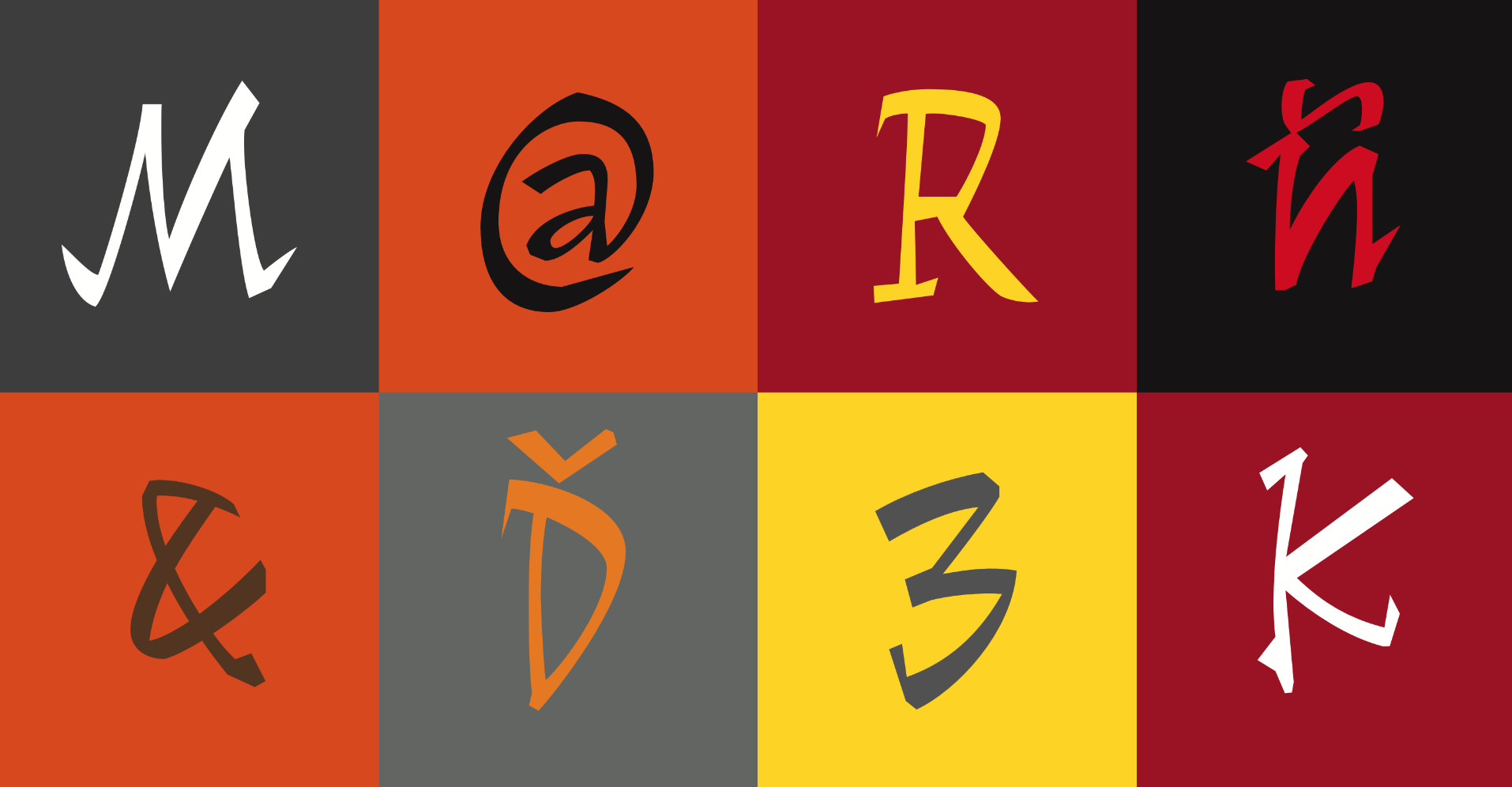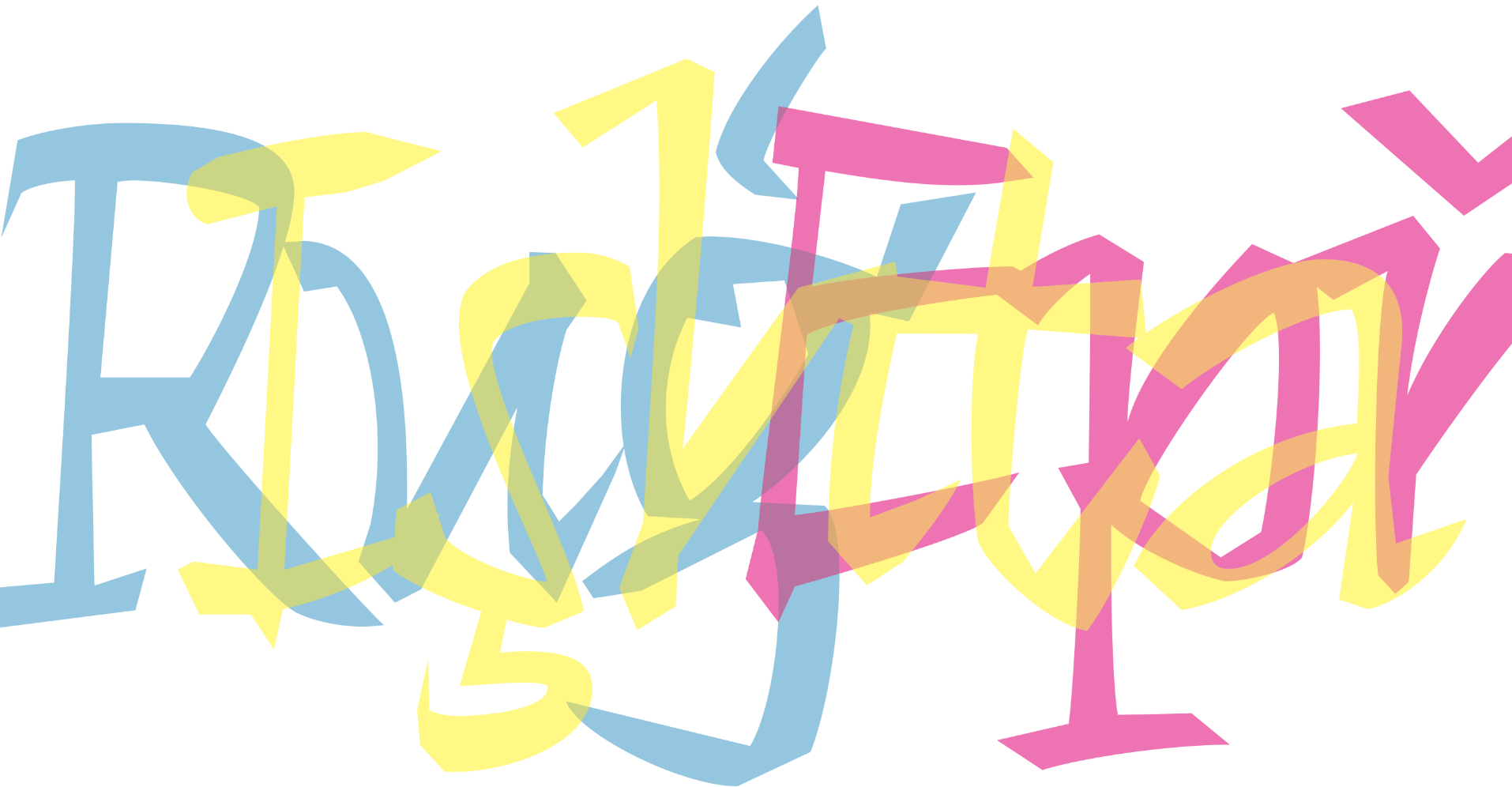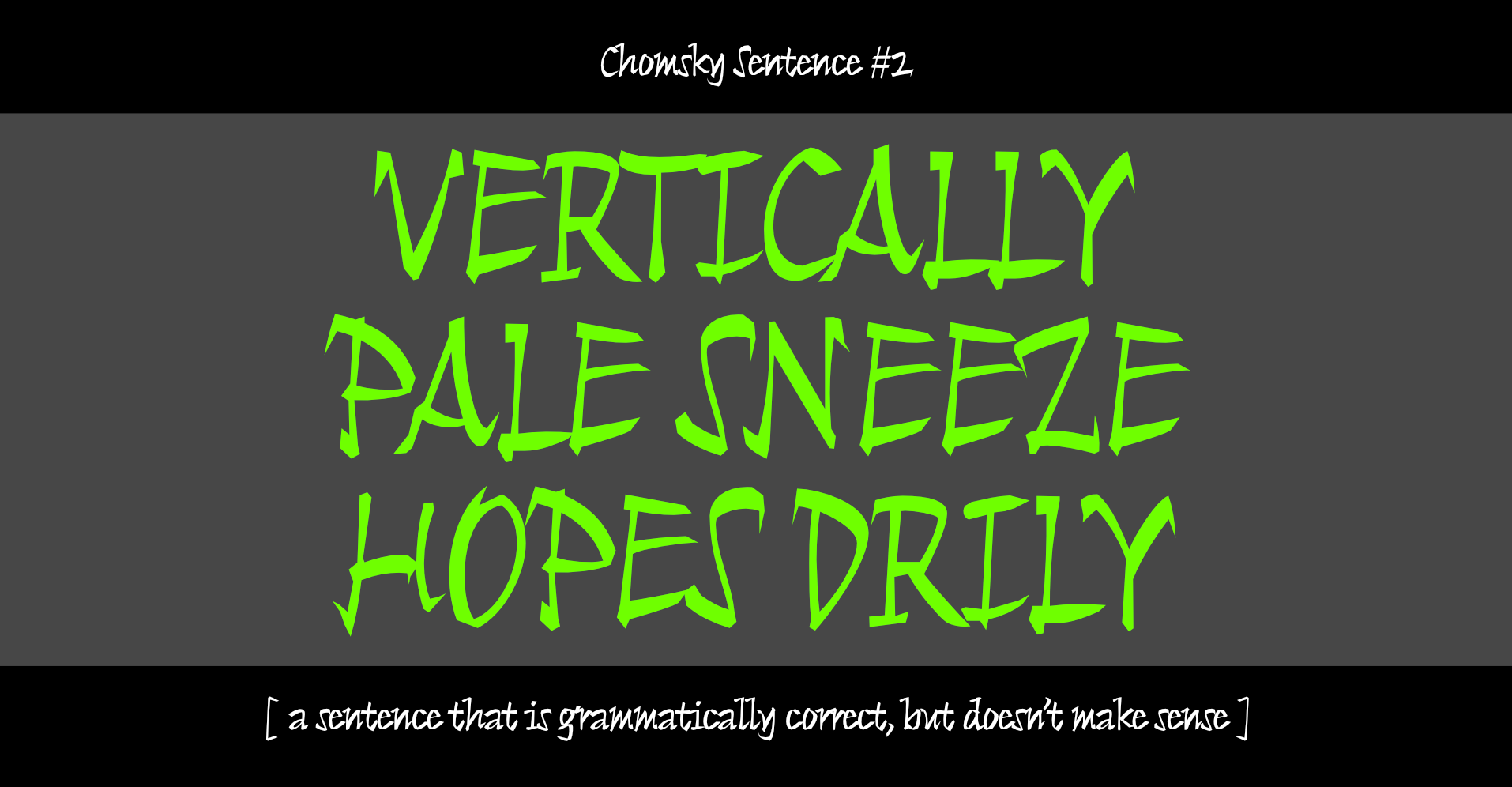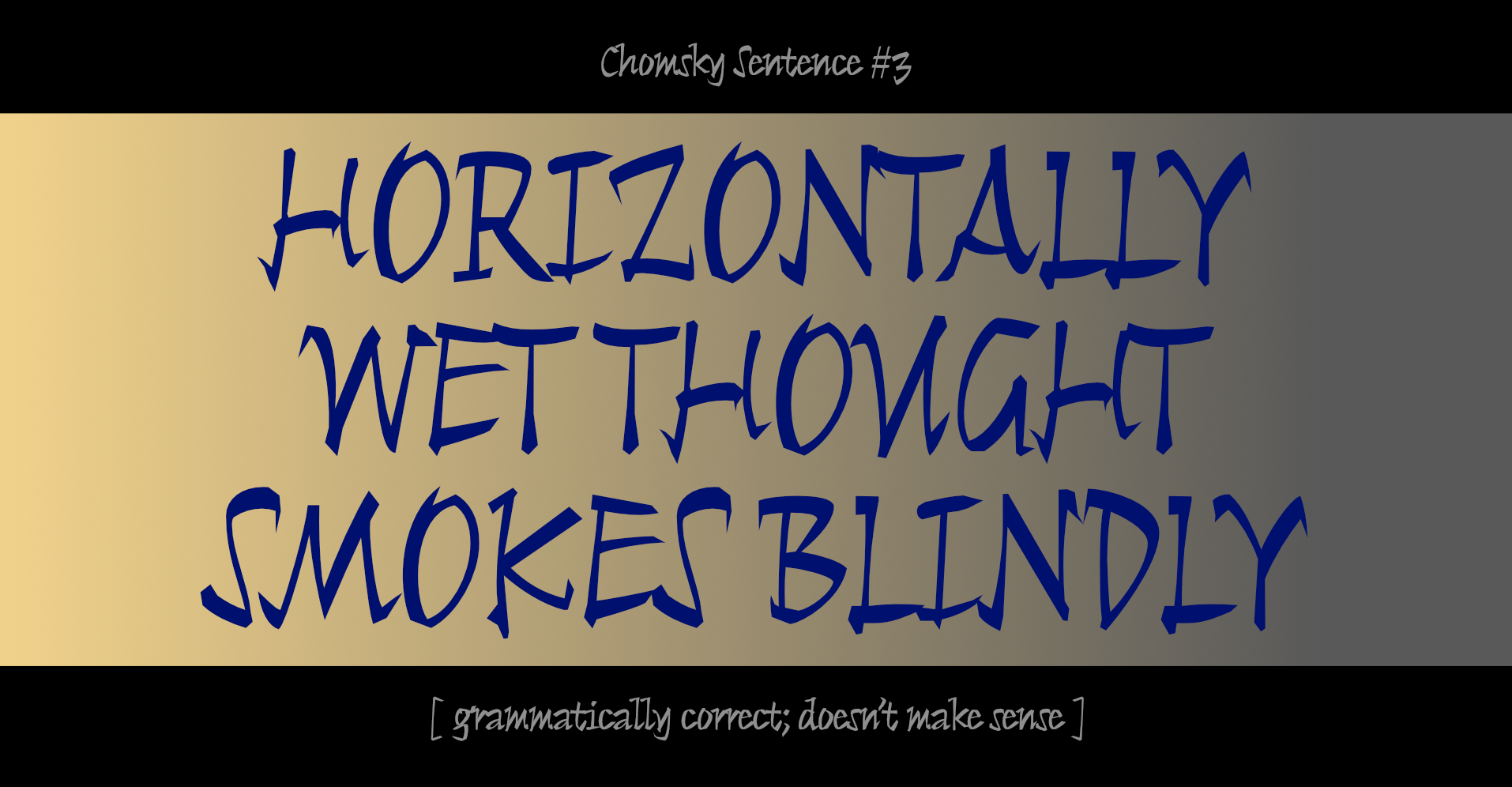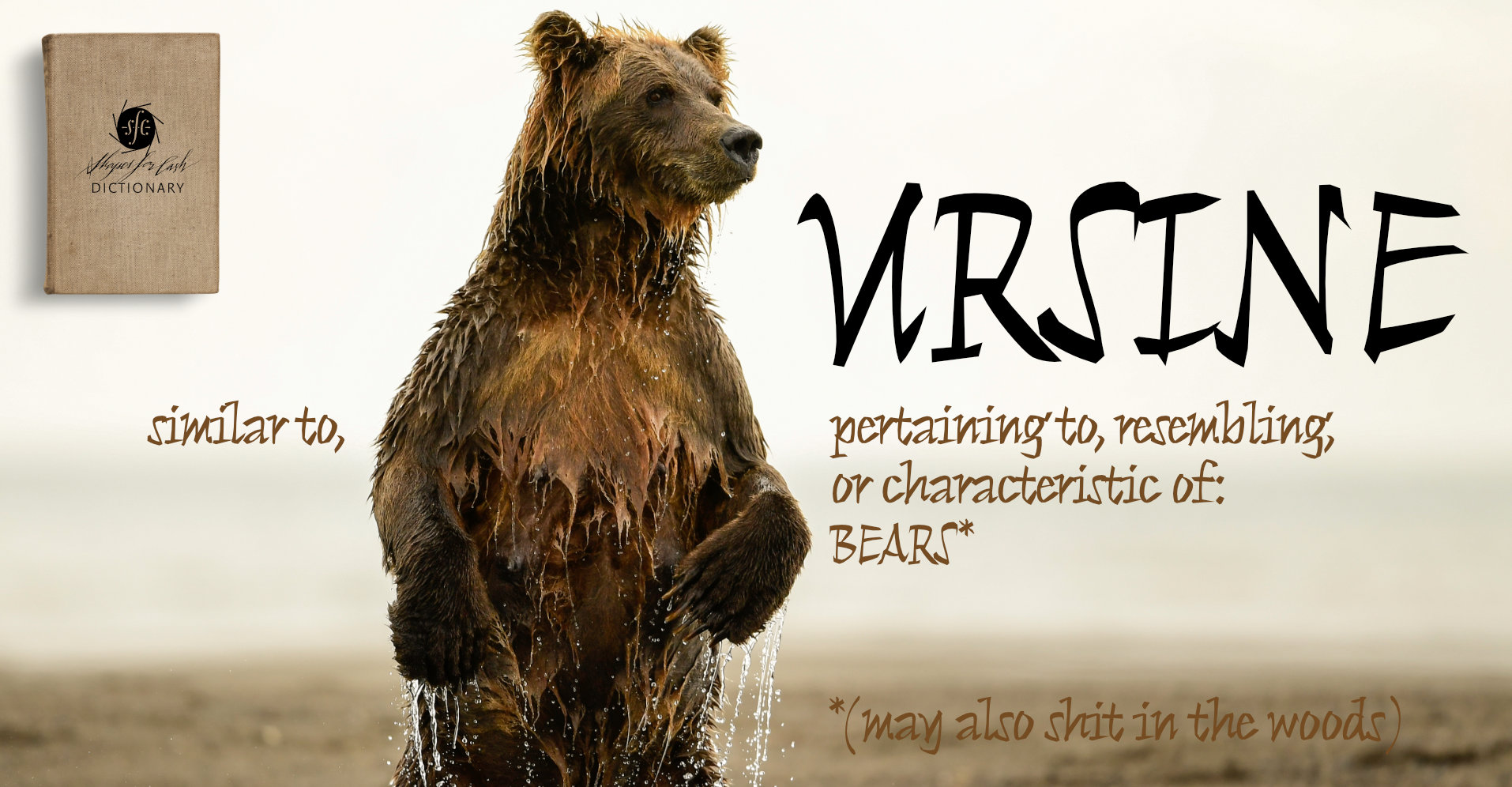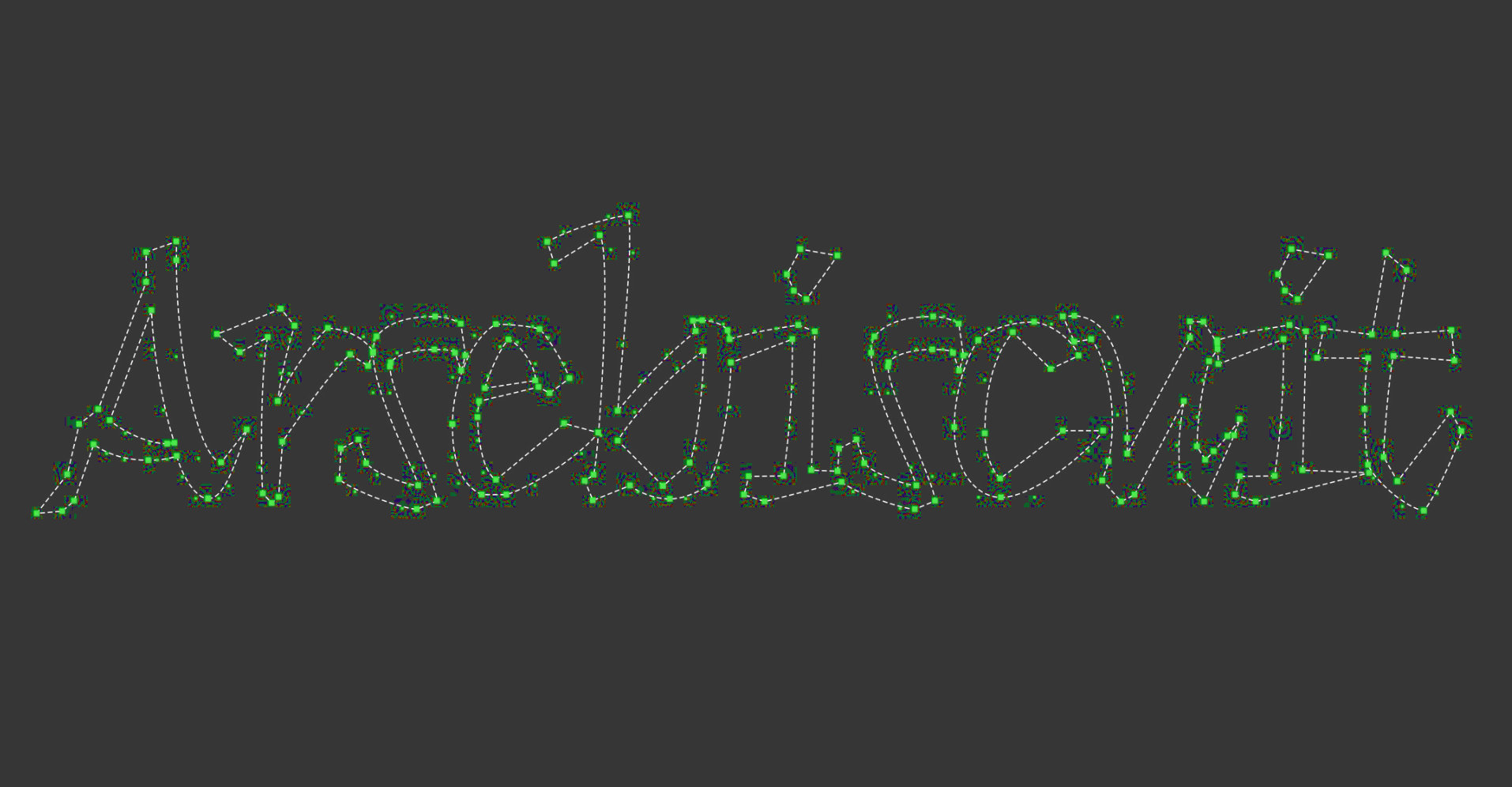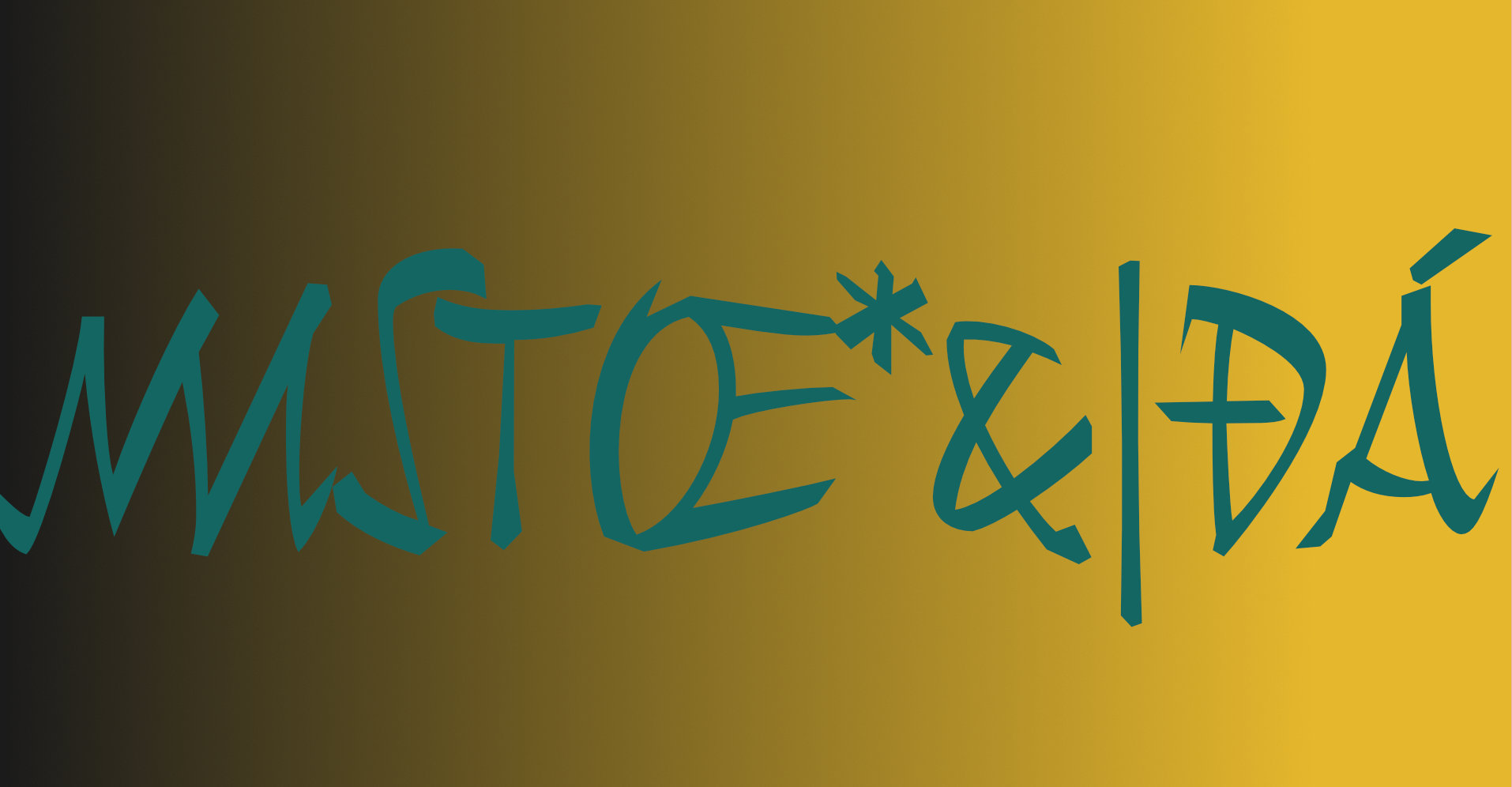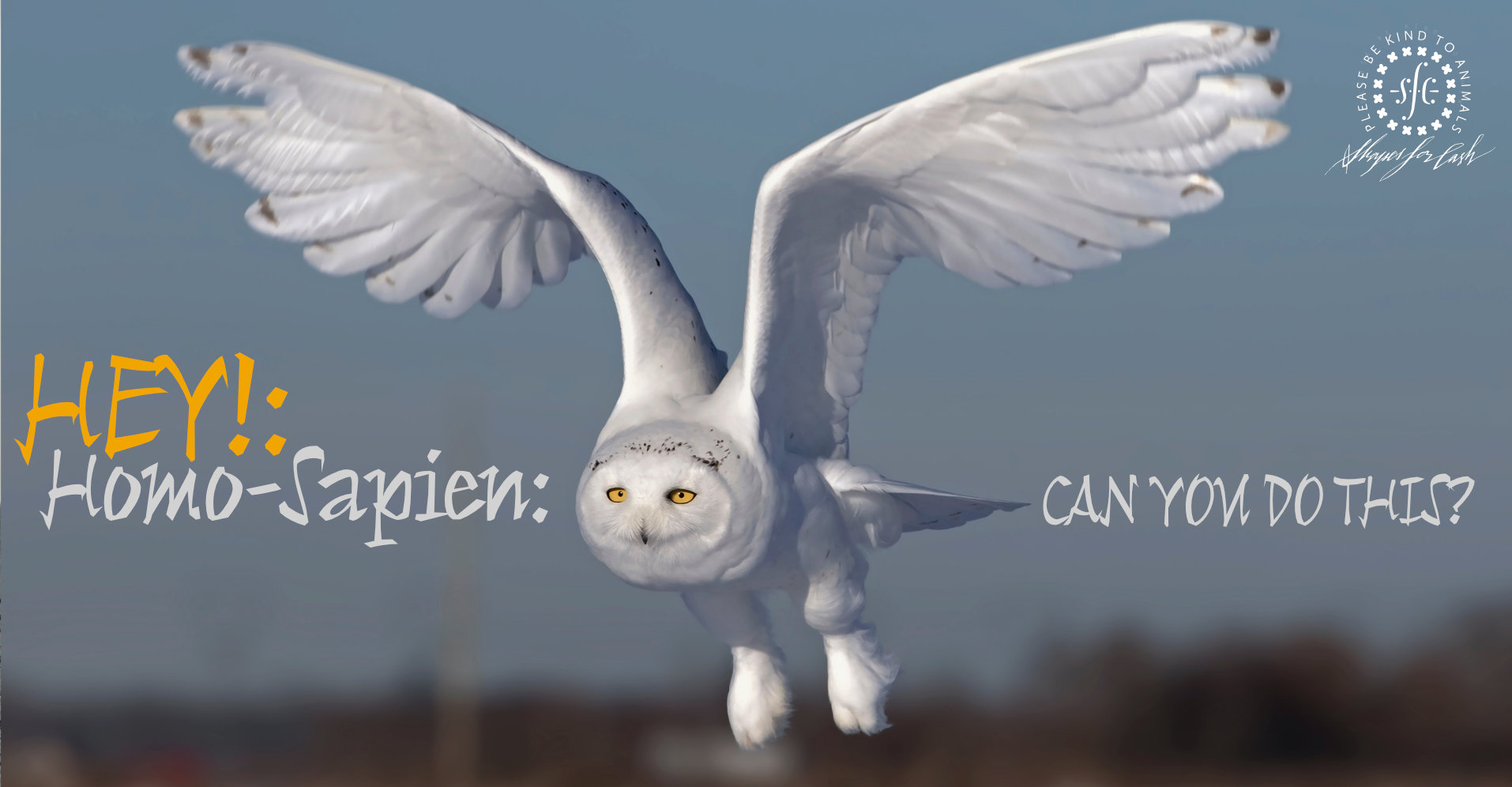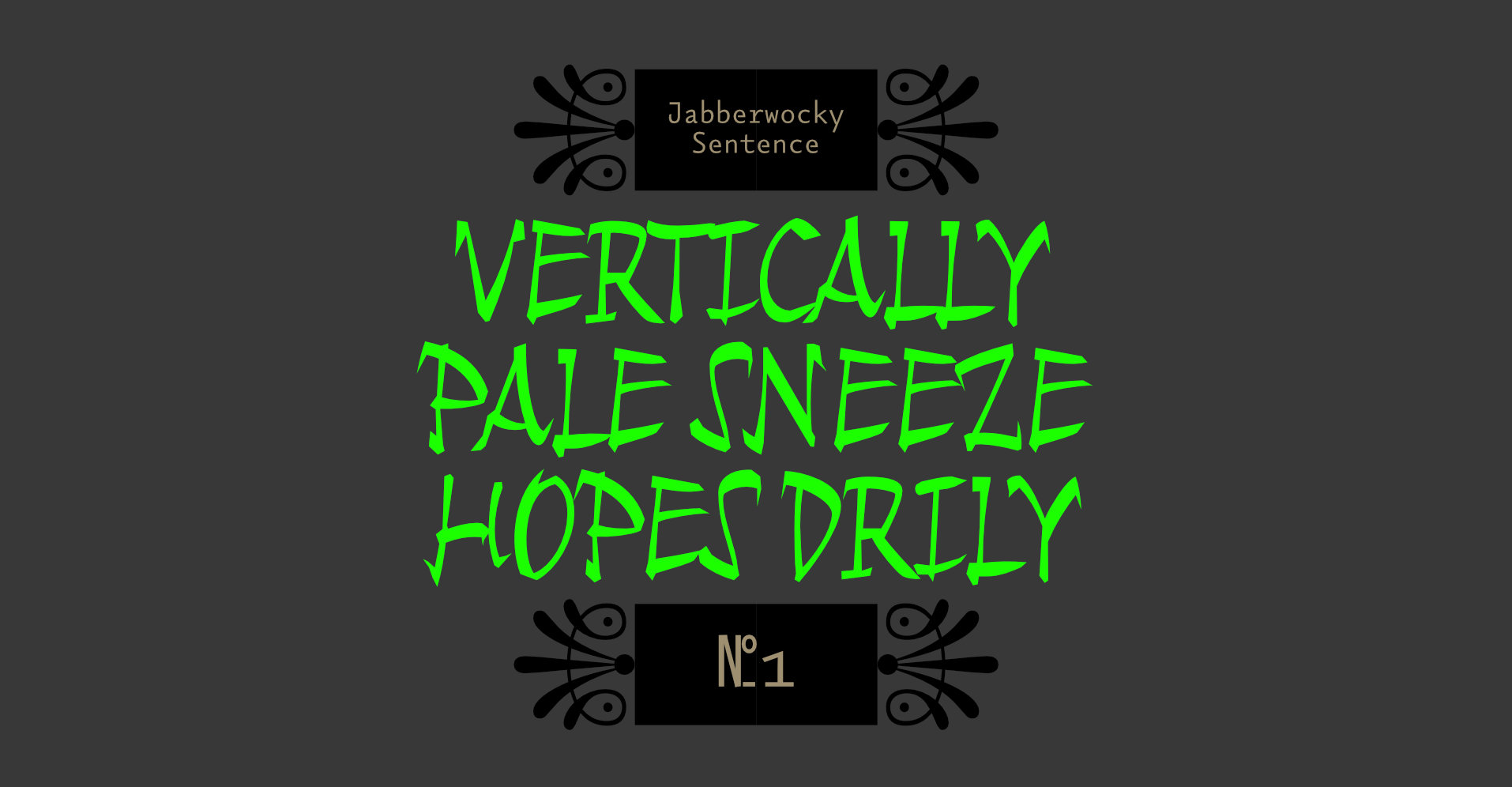
Amadeo
In 1996 I sent a design to the Morisawa Typeface Competition. It won a prize. This is what I said about it at the time: ✚ More of our previously Carolingian lettershapes, de-contextualised by writing them with a cheap marker at the wrong pen angle. The weight distribution is uneven too. Most people would say it would never work as a typeface. This is what the judges said: ✚ Adopting the pen script method, this typeface fully expresses the good qualities of hand written letters and yet, it is very beautiful in text composition. It is designed to give a texture of calligraphy brush writing and would probably make a good match with Kanji characters. Parts of the letters look as if they have been cut off with a knife. This font has rhythm and is beautiful in typesetting and calculated to show a unique texture, not seen in ordinary Latin typefaces ¶ I thought I was naming the typeface after the painter, Modigliani: I liked the music of his first name but I now realise that I have spelt it incorrectly. No matter: I prefer my choice of vowels and I adore a happenstance neologism! There are related designs in the works, if you are interested in those, it would be a good idea to sign-up for the newsletter using the link at the top of the page, as that is where wee previews will be shown, and where they will be announced. You will be able to see the original design – as presented in Morisawa’s brochure – by scrolling the gallery above.